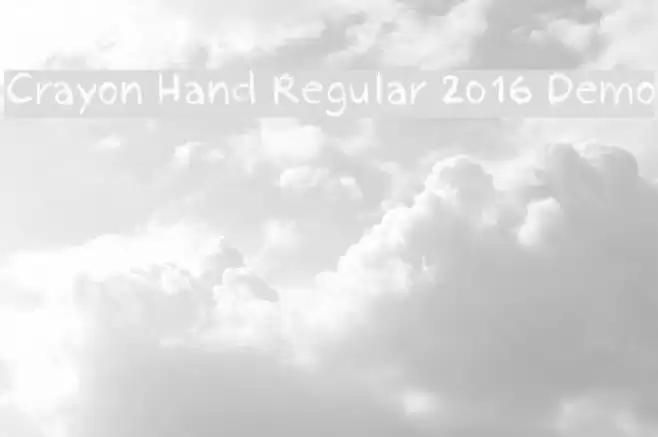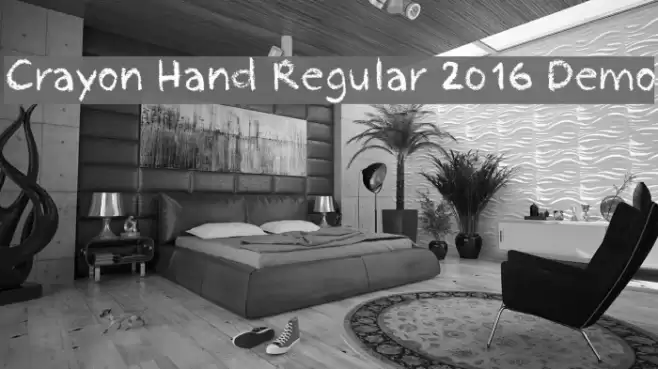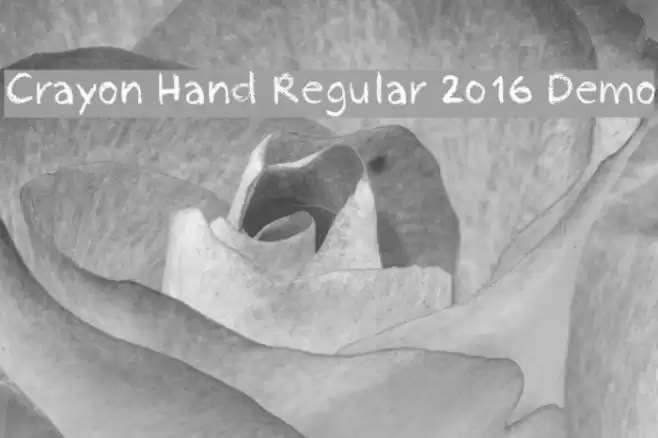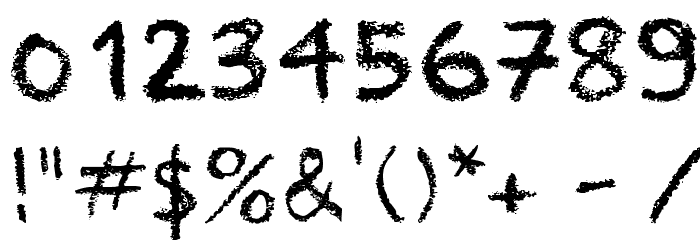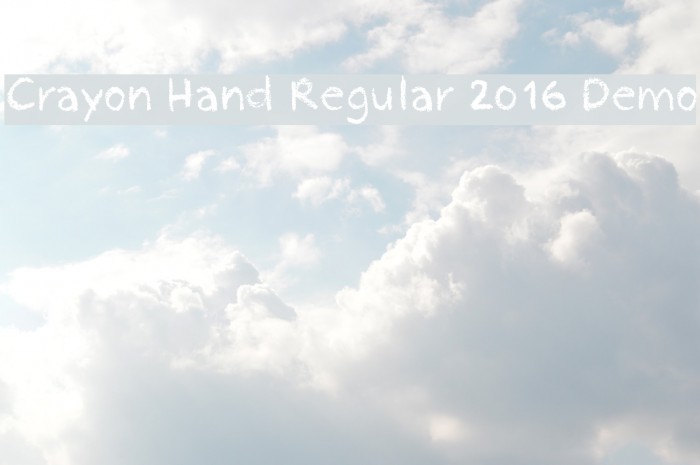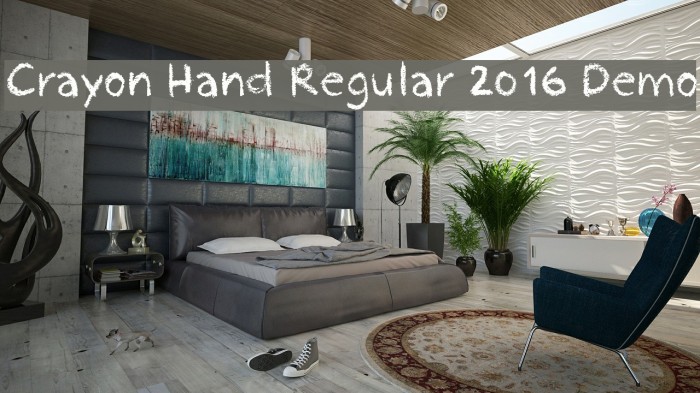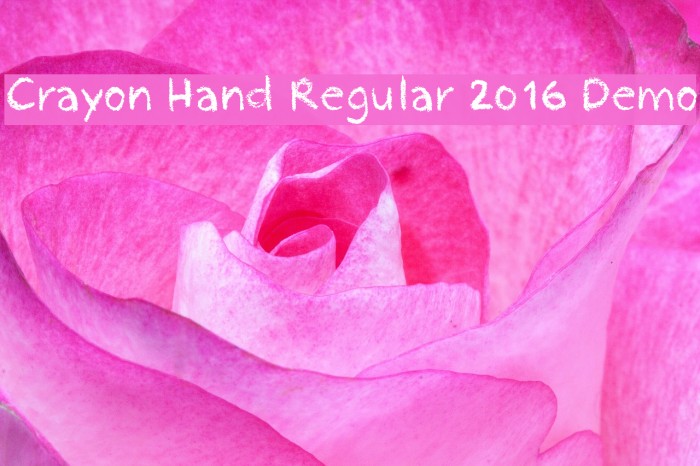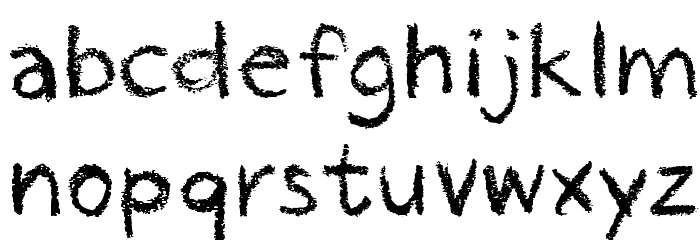
Crayon Hand Regular 2016 Demo Font
Crayon Hand Regular 2016 Demo Description
This font exudes a playful and informal vibe, reminiscent of handwriting with a crayon. The characters have a rough, textured appearance, giving them a unique, handcrafted feel. The strokes are uneven, adding to the casual and artistic nature of the font. It captures a sense of creativity and spontaneity, making it ideal for projects that aim to convey a sense of fun and informality. The font maintains good legibility despite its textured style, with each letter distinctly recognizable. The overall design is both charming and approachable, suitable for a variety of creative applications.
A playful, textured font with a crayon-like, handcrafted appearance from Script fonts.
- Proposed Projects: Ideal for children's books, art projects, playful branding, and informal invitations.
- Use Case: Headlines, Logos, Creative projects